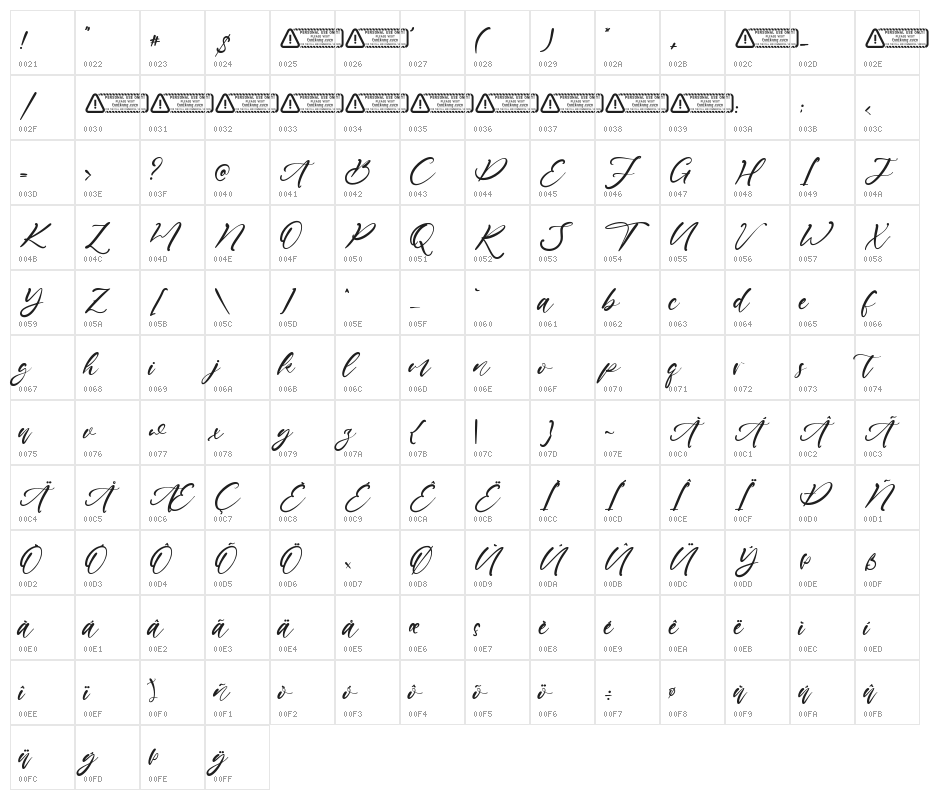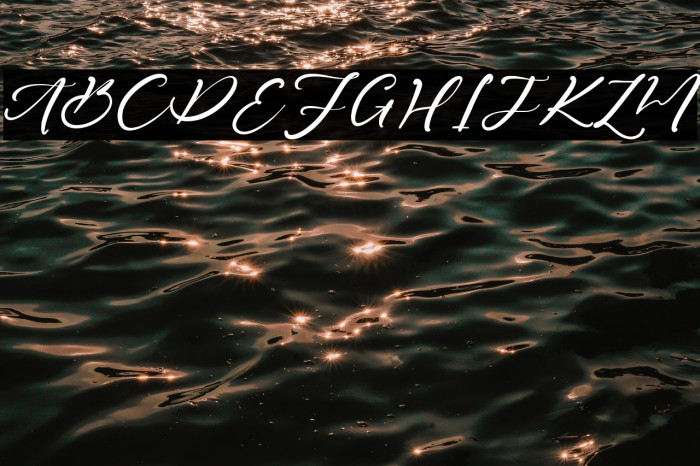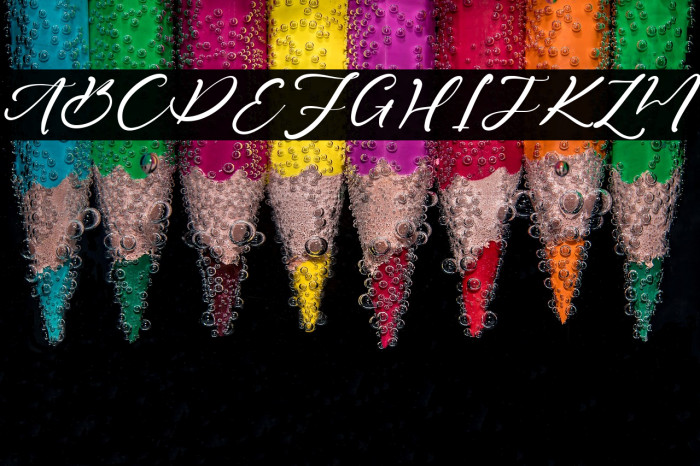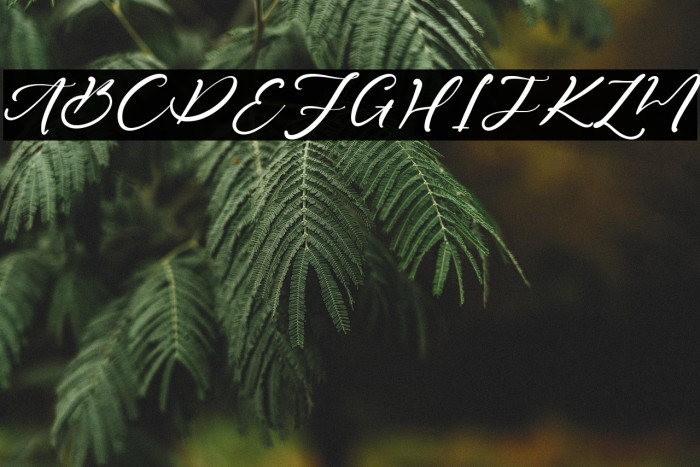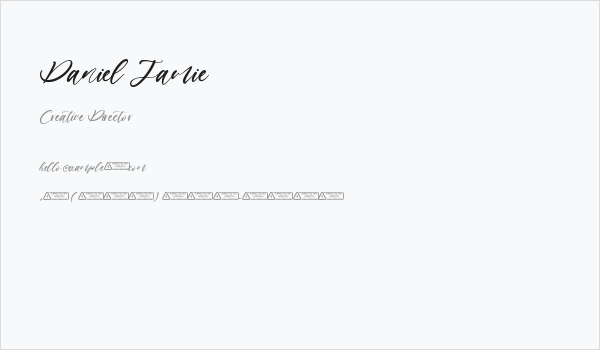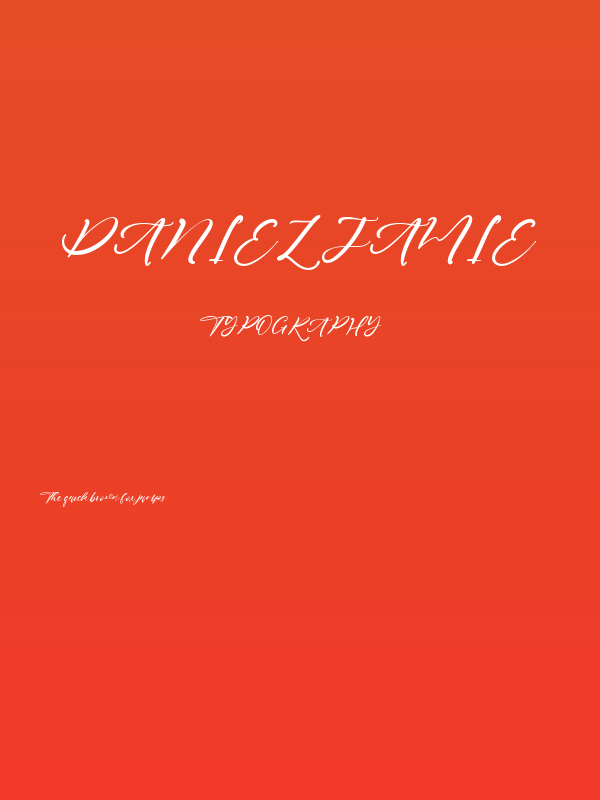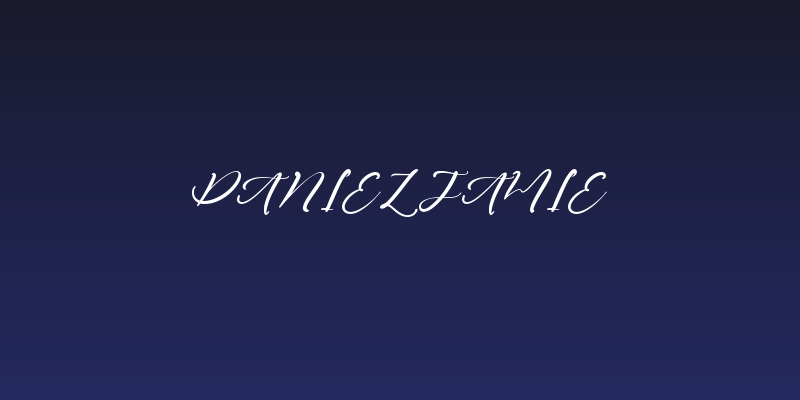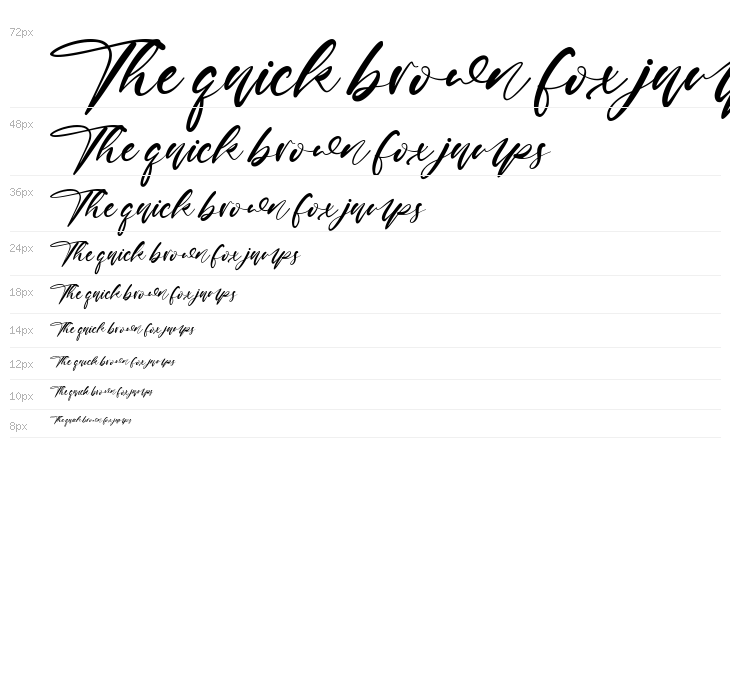
Daniel Jamie Font
Daniel Jamie Description
This elegant script font features a flowing, cursive style with a modern twist. The uppercase letters are gracefully connected, while the lowercase letters exhibit a playful yet sophisticated flair. The strokes are smooth and fluid, with a slight slant that adds to its dynamic appearance. The font's overall look is both stylish and versatile, making it suitable for a variety of design projects. The special characters maintain the same fluidity, ensuring consistency throughout. This font is perfect for creating eye-catching headlines, invitations, and branding materials that require a touch of elegance.
| Use Case | Headlines, Invitations, Branding |
| Proposed Projects | Ideal for wedding invitations, branding, logos, and elegant stationery. |